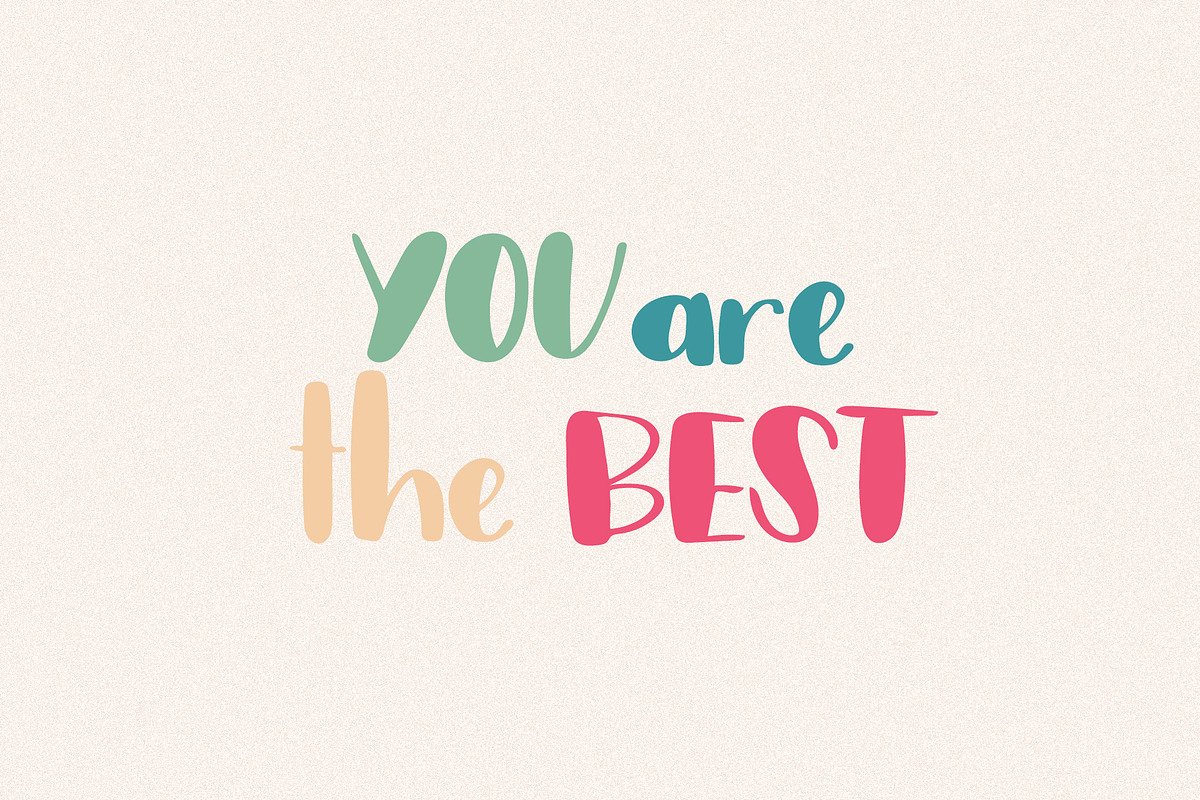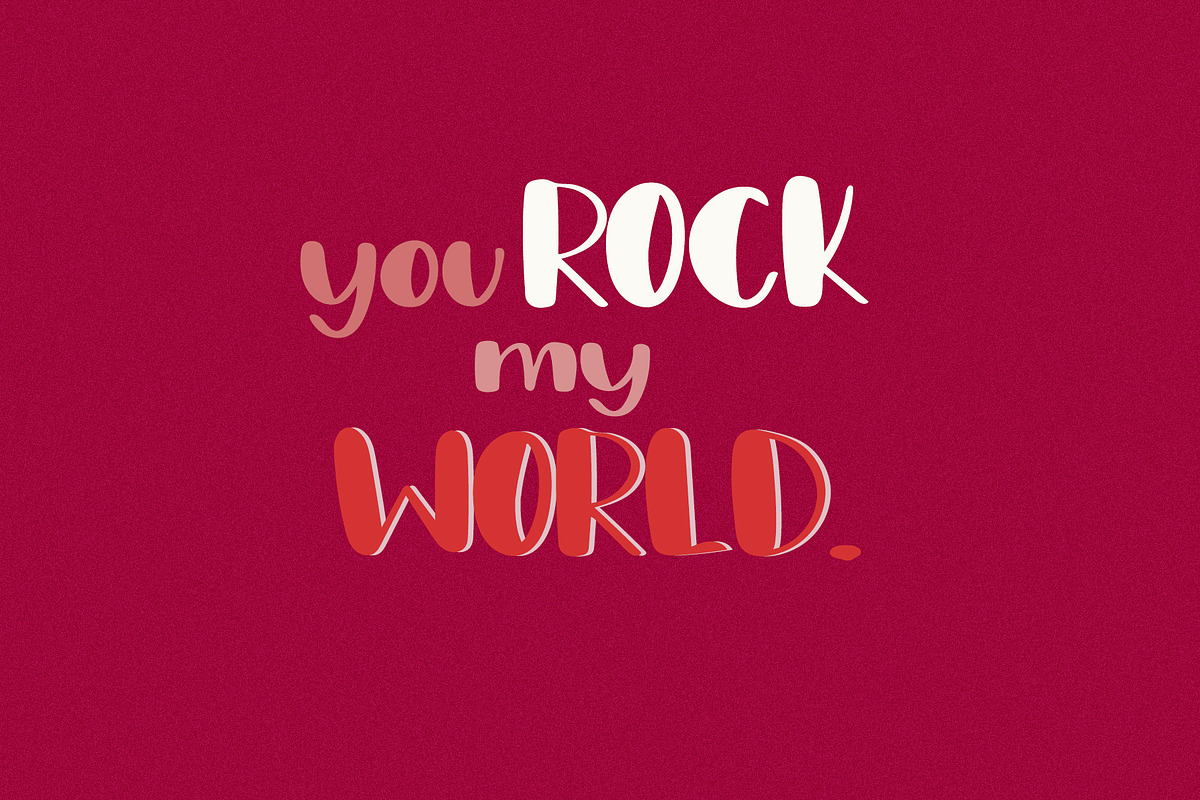
Jumpstart Font
Jumpstart is a fun and bold handwritten font. This font is perfect for quotes, cards, blogs, logos, and more. The font has accent characters, uppercase, lowercase, punctuation, and numbers. Your purchase includes a TTF and OTF file.